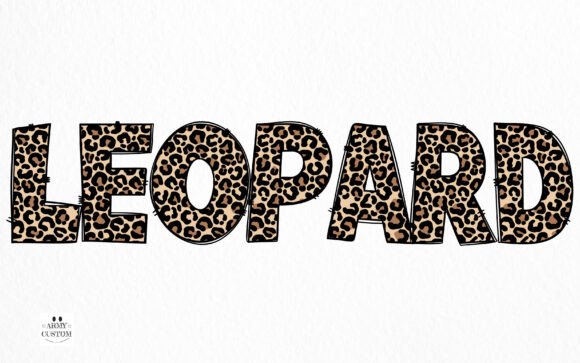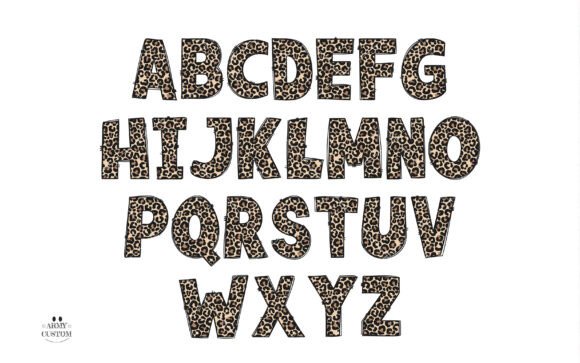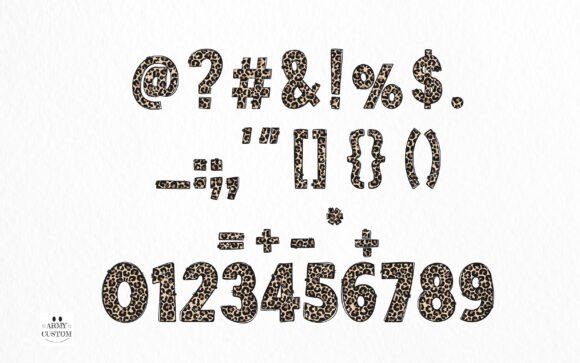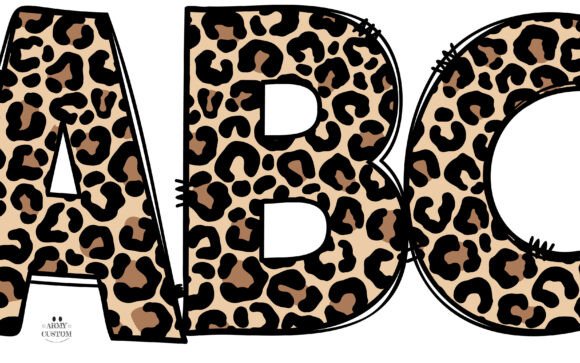
Introduction to Leopard Army Font Font
Fonts play a crucial role in design, and the Leopard Army Font font is a typeface that brings both character and versatility to any project. Whether you’re working on a branding project, a website, or a print design, the Leopard Army Font font offers a unique style that can elevate your work.
Discover the wild, dynamic artistry of Leopard Alphabet.
This unique font design draws inspiration from the mesmerizing patterns of a leopardβs coat Imbued with a natural finesse and a fierce touch of the wild, Leopard Alphabet offers an unforgettable visual style perfect for your creative projects.
Key Features of Leopard Army Font Font
Why Choose Leopard Army Font Font?
The Leopard Army Font font is more than just a typeface β it’s a design tool that helps you communicate your message with style and clarity. Its unique character set and versatile design make it suitable for a wide range of applications, from elegant invitations to bold headlines.
With its carefully crafted letterforms and balanced proportions, the Leopard Army Font font ensures readability and visual appeal across all mediums.
What makes Leopard Army Font font special?
The Leopard Army Font font stands out with its unique design, exceptional readability, and versatility across various design applications.